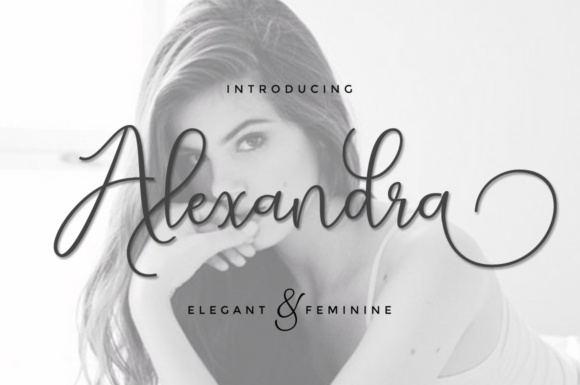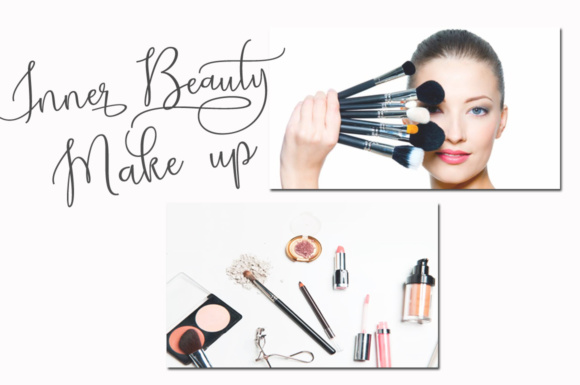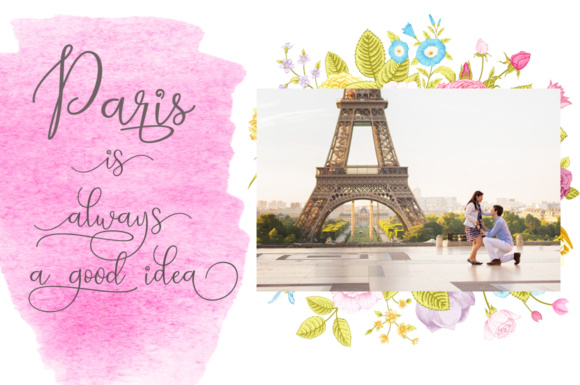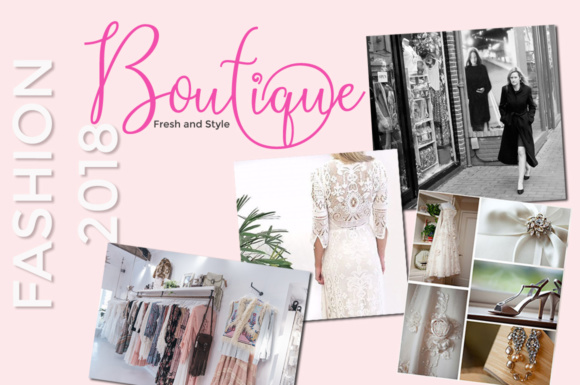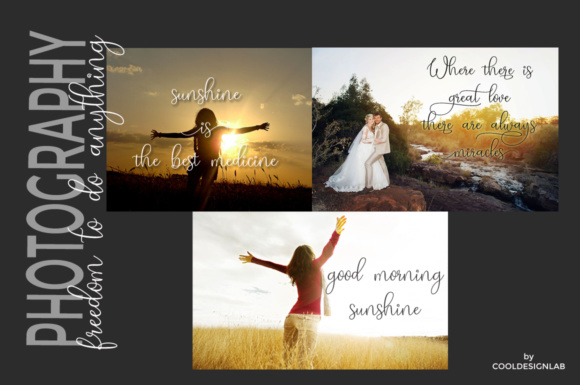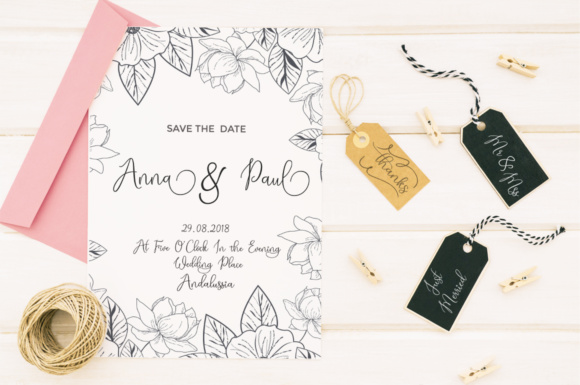
Alexandra Script Font
About Alexandra Script Font
Alexsandra script, a beautiful casual modern calligraphy font. It has a contemporary script style that hits the trends nowadays. It would be a perfect mate for branding, logo, fashion stuff, cosmetic, apparel, journal, lookbook, greeting cards, a fancy presentation, glamor appearance, magazine. So versatile, right?
Alexsandra script is perfect for the current market design, this font has a Trendy model, natural and gentle, with this font you can take advantage of this opportunity every time with a stunning way to highlight your holiday celebrations.